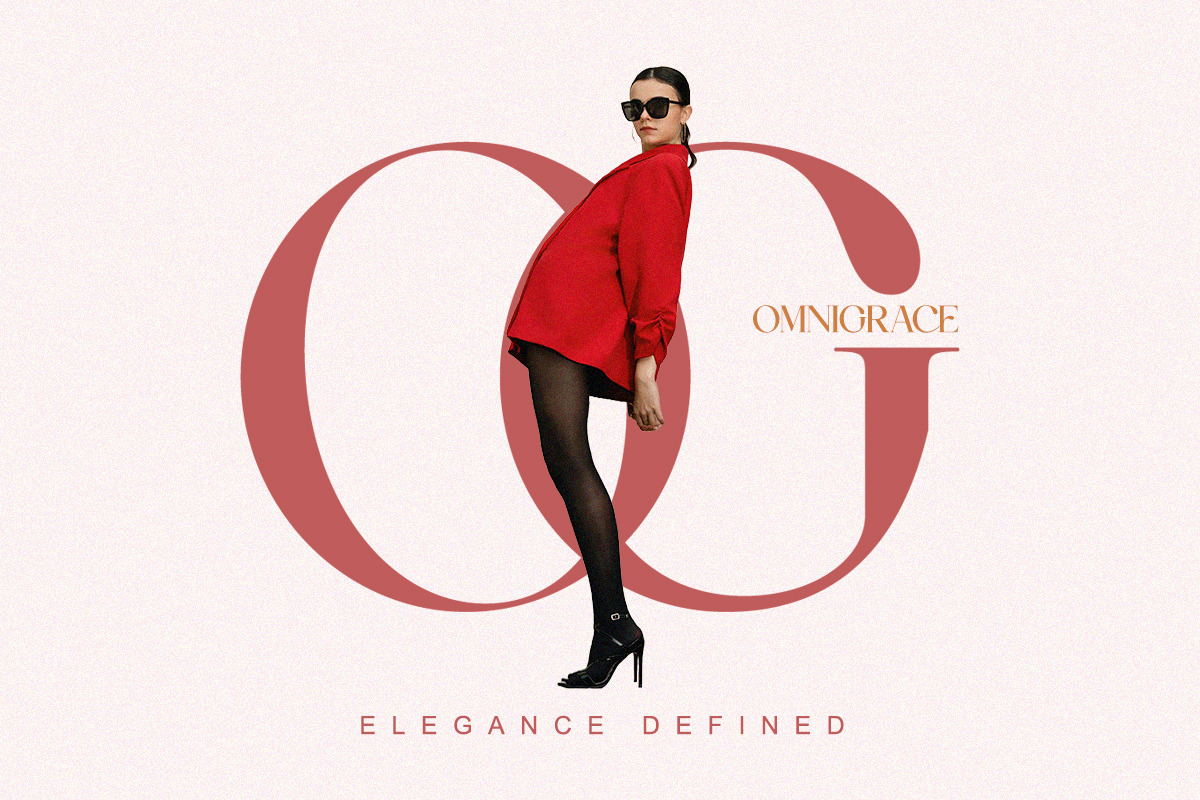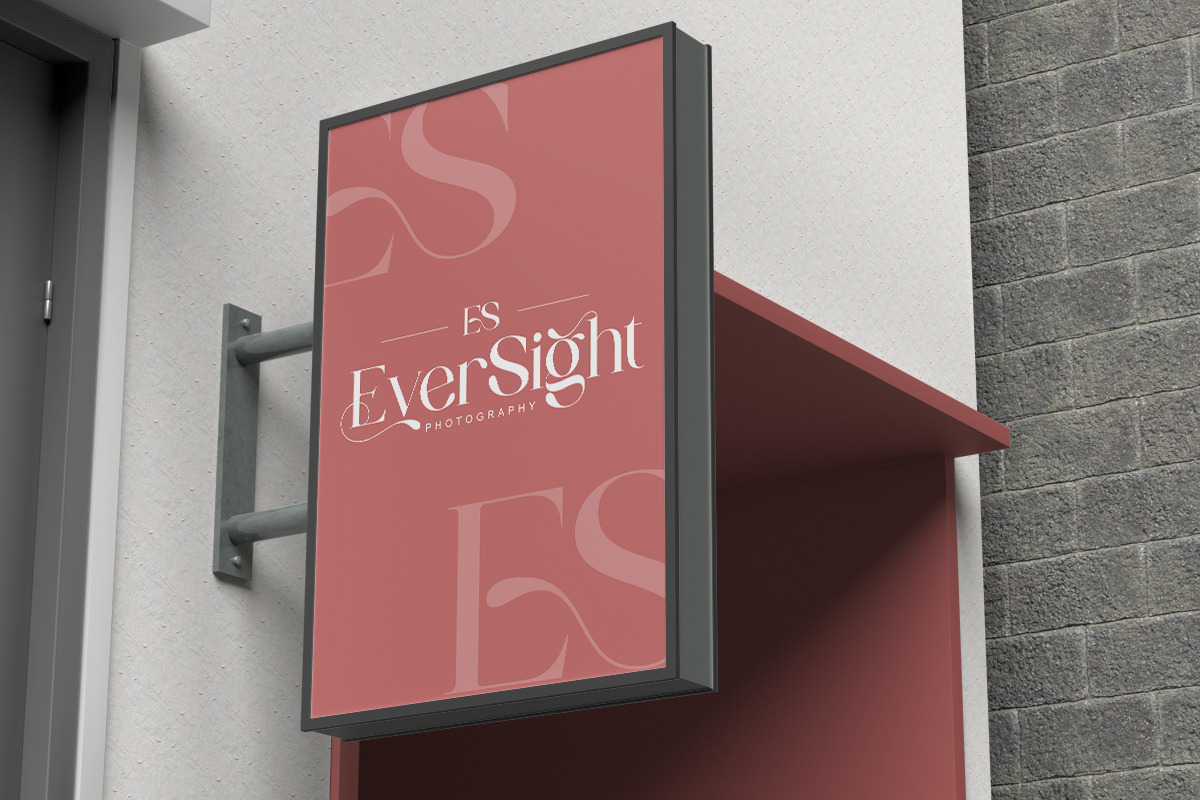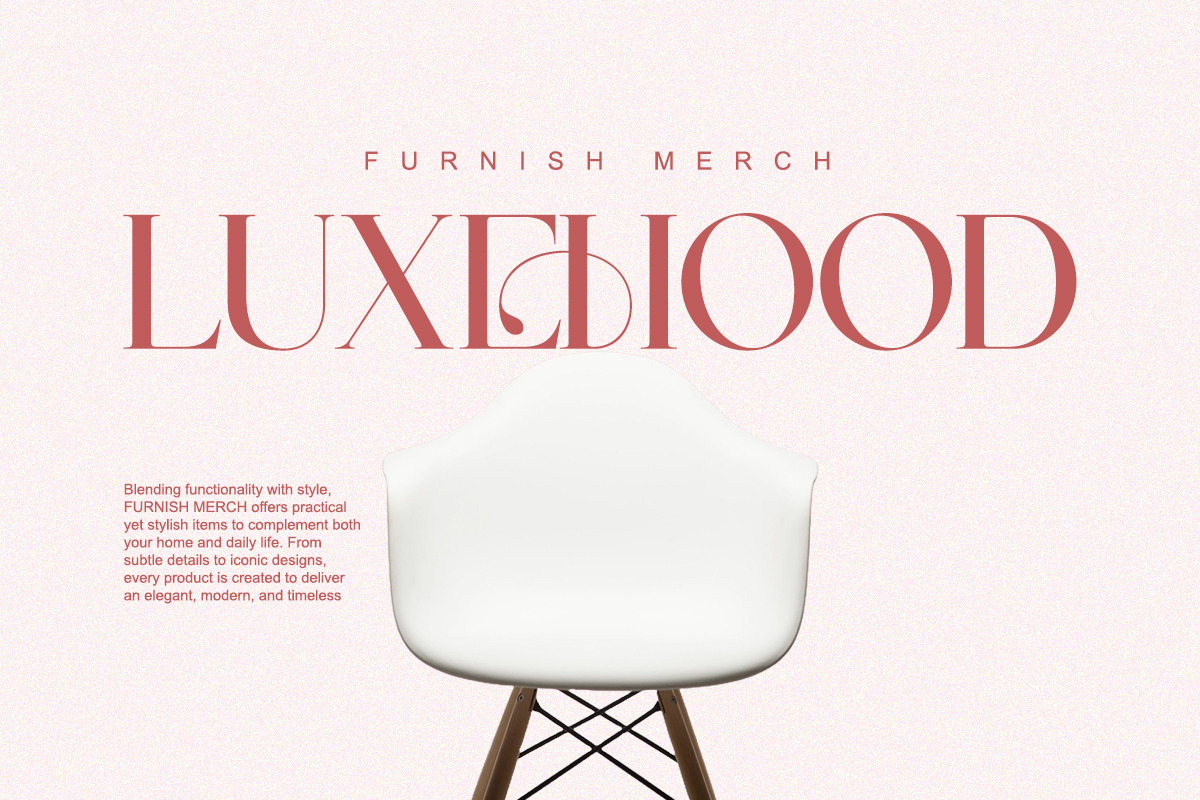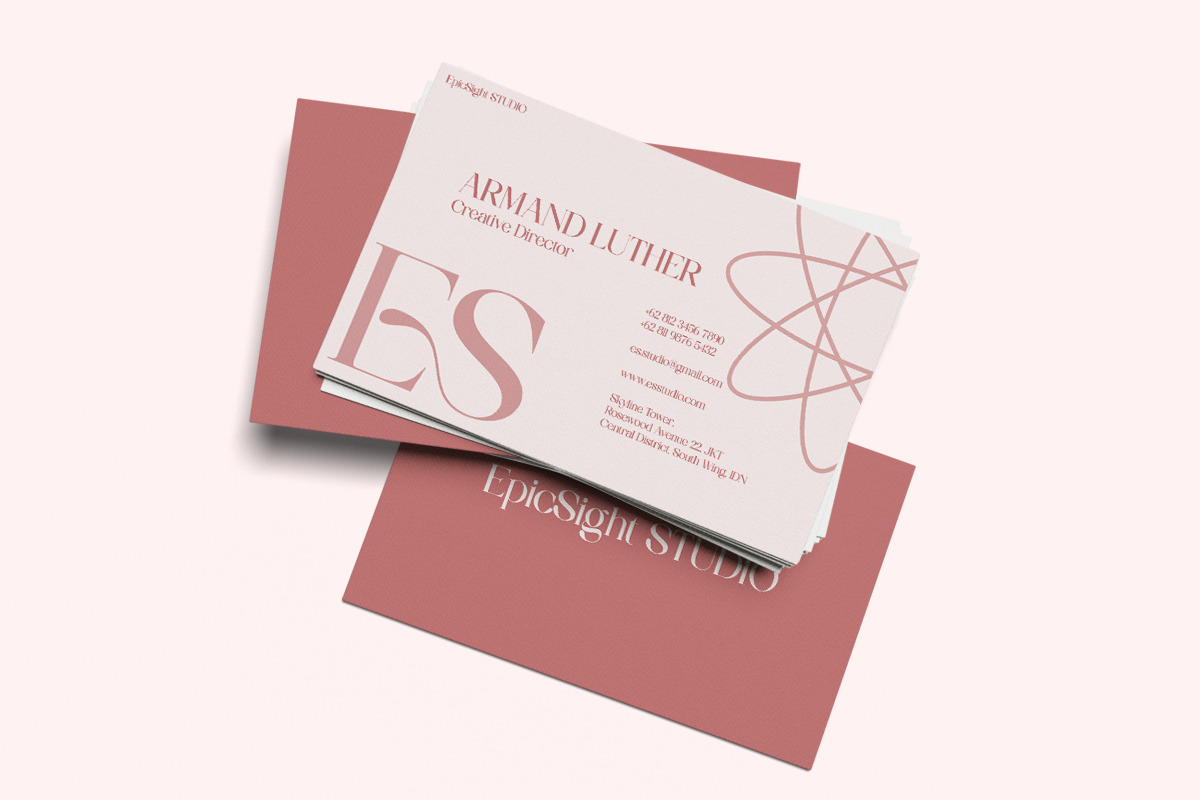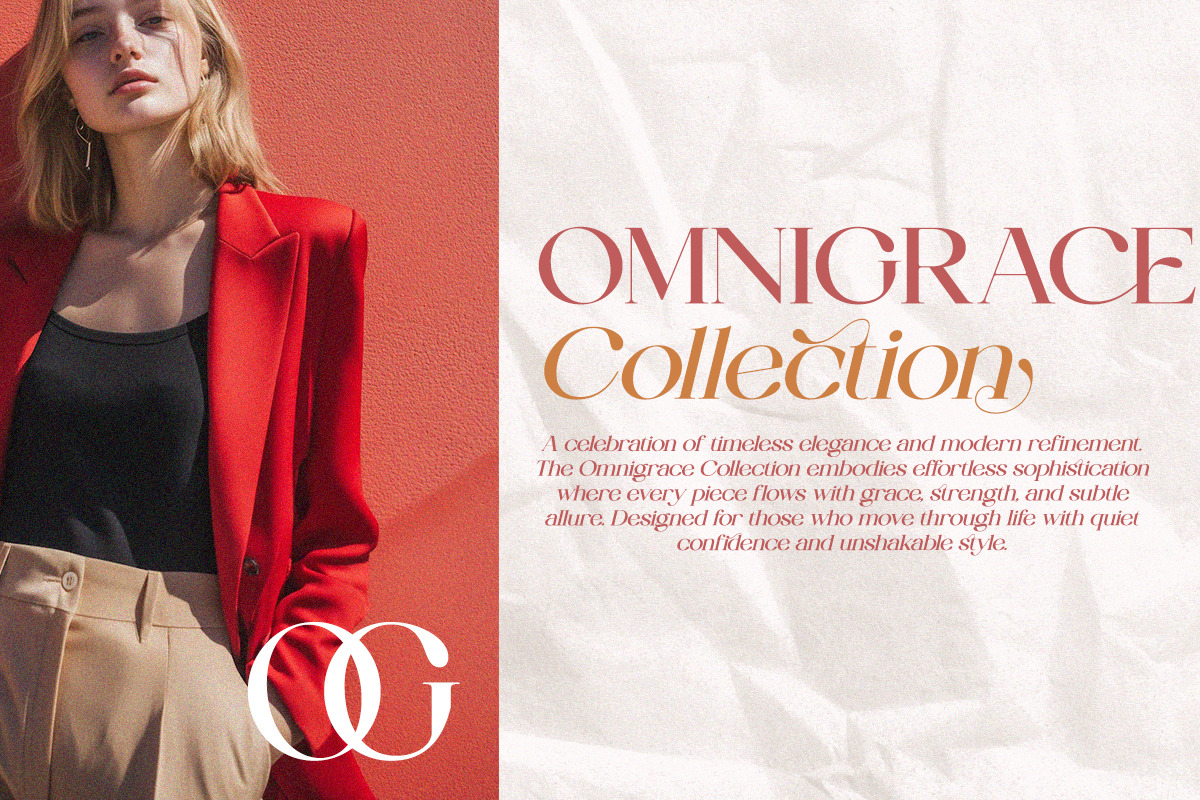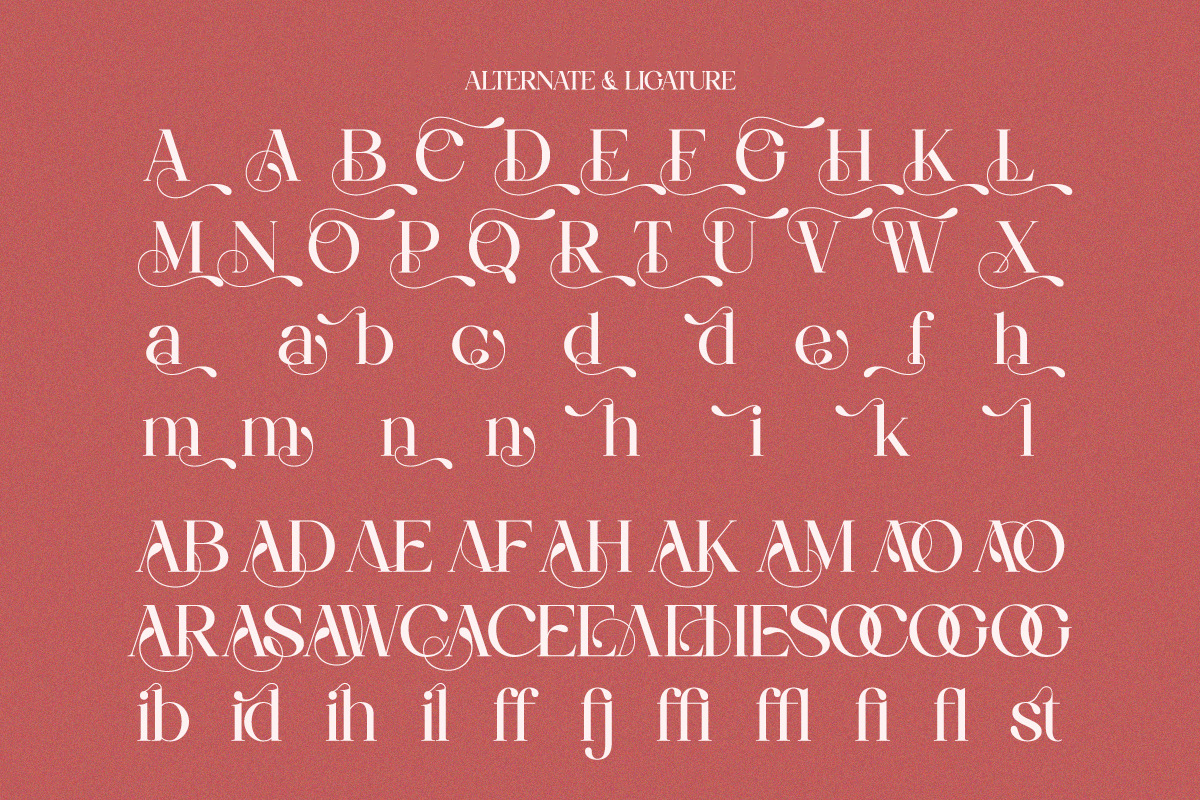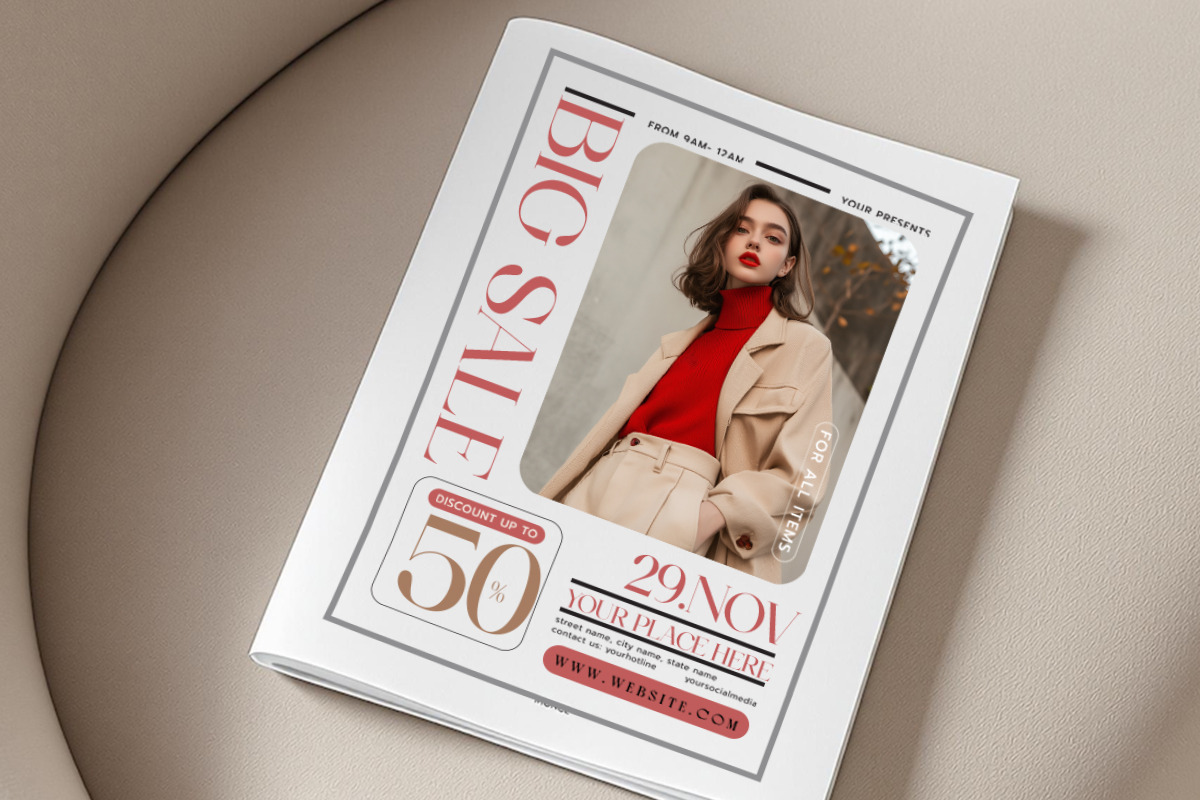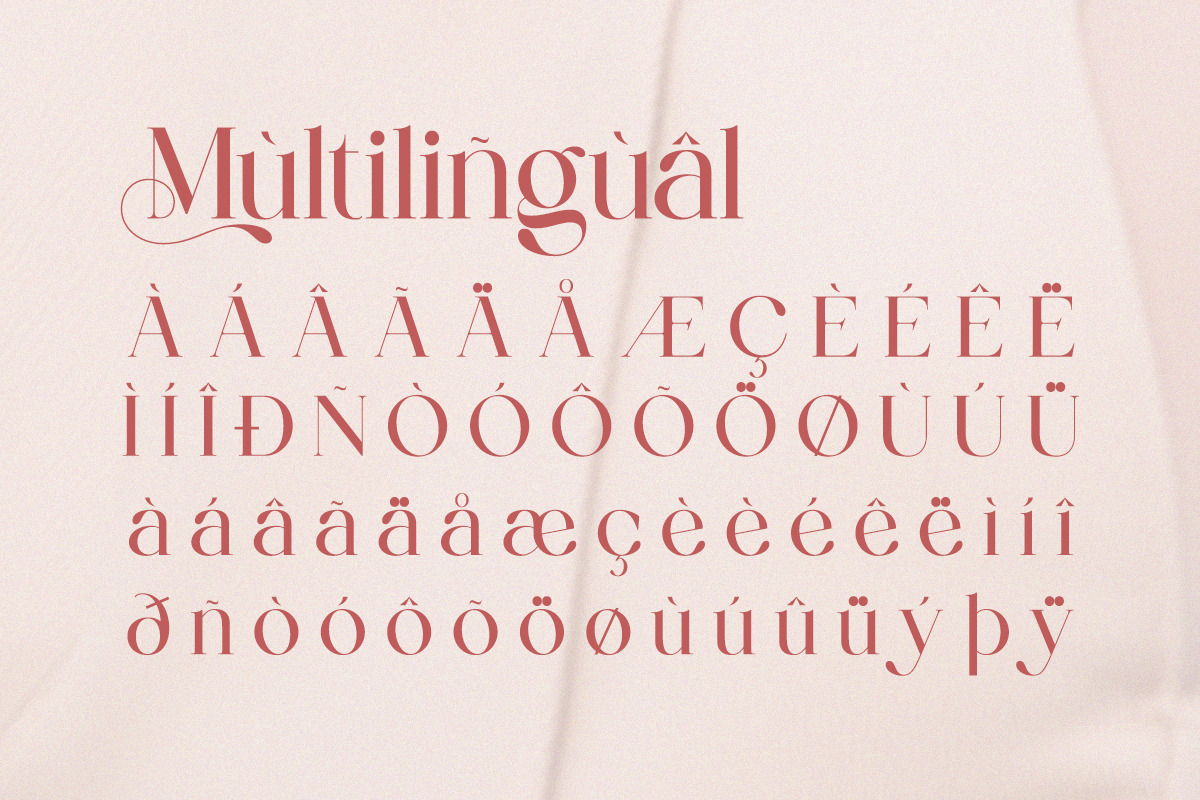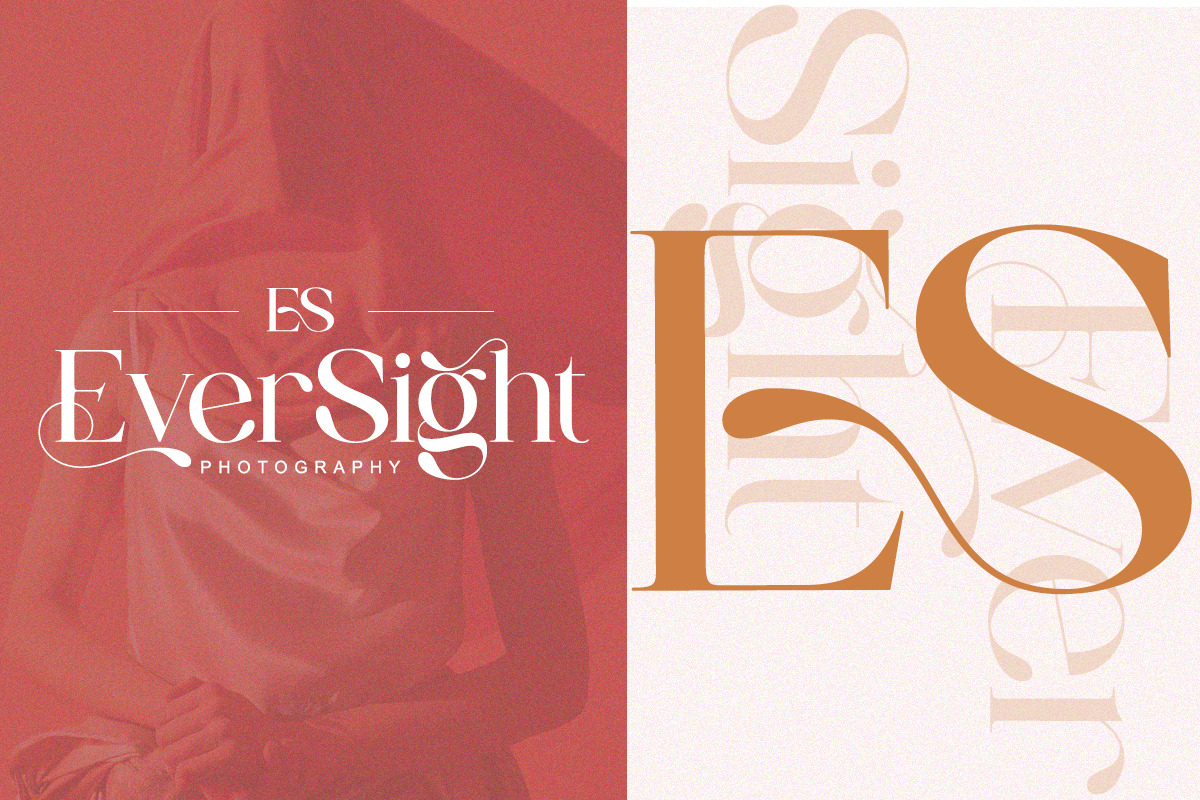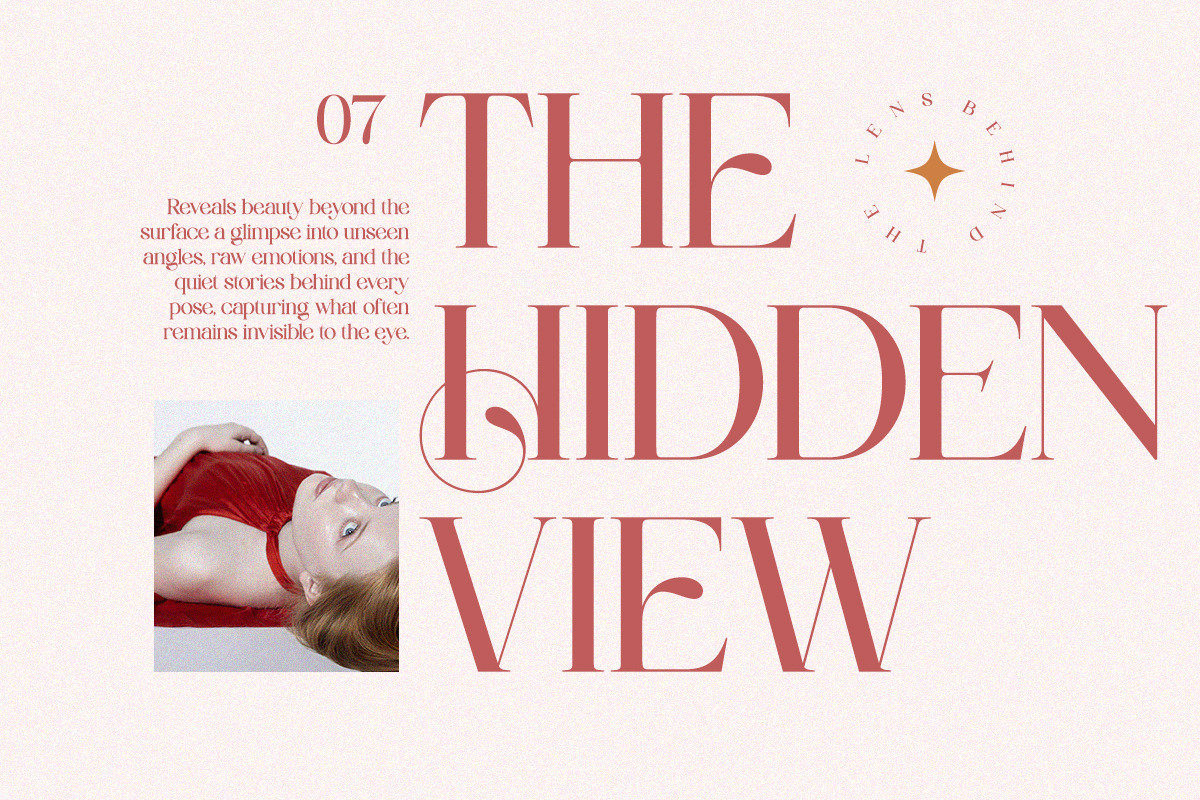
Valencie - Modern Elegant Serif
Introducing Valencie, a modern elegant serif font with luxurious curves and gentle sophistication. It’s perfect for designers seeking beauty and refinement in logos, wedding invitations, packaging, or fashion editorials. Valencie delivers a sense of femininity and modern charm with every stroke — graceful, delicate, and captivating.
- Elegant Editorial Style
Perfect For: Branding, packaging, invitations, beauty design, and magazine titles.